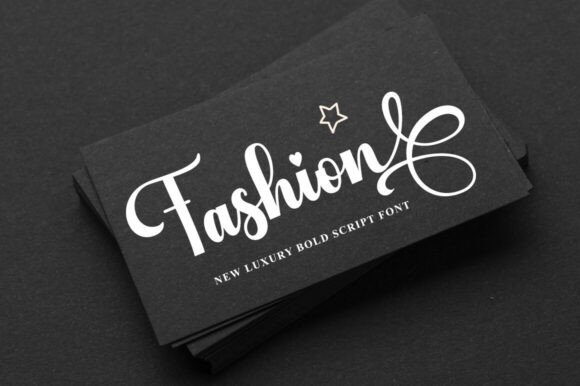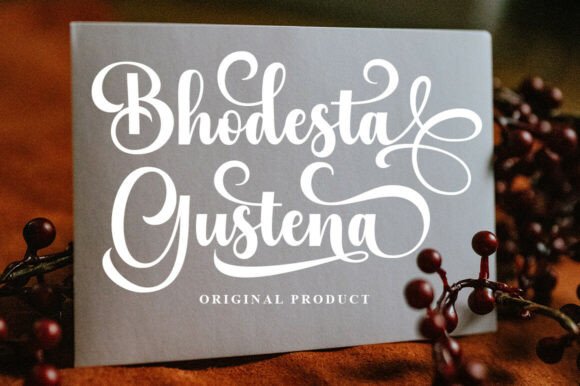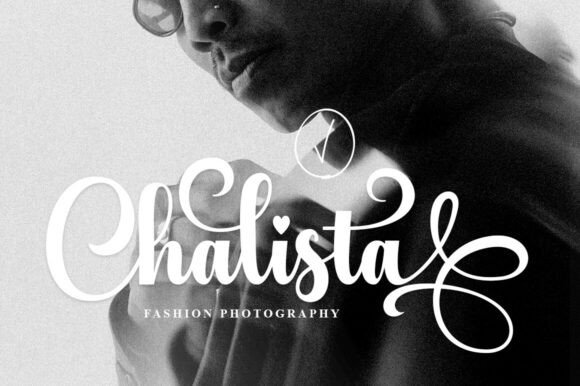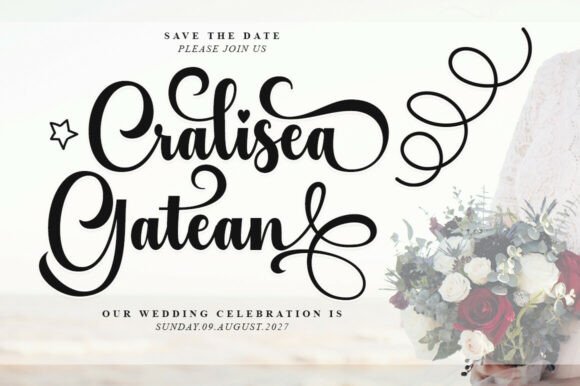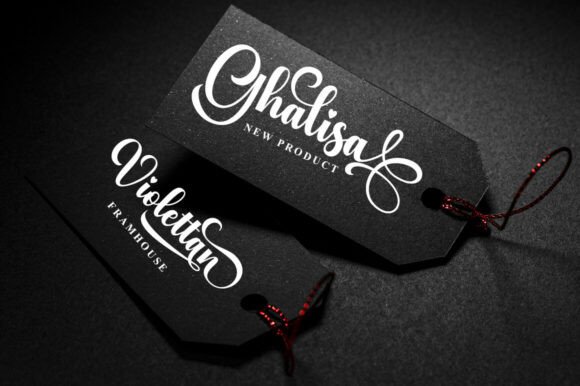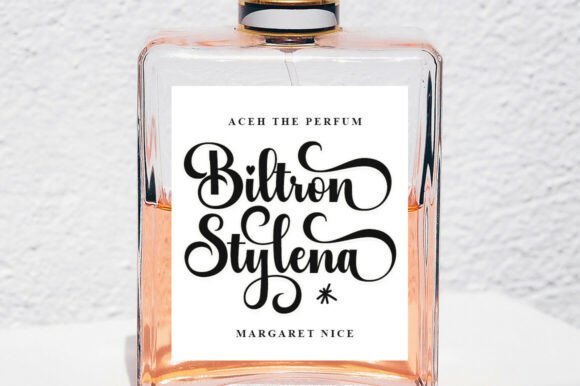
The Perfect Touch of Elegance: Unlocking the Power of Chalista Yustina Font
Have you ever stared at a blank canvas, waiting for that spark of creativity to ignite? It’s a moment we’ve all experienced, and it’s where the magic happens. For designers, this moment can be a make-or-break scenario, where a single font choice can elevate or detract from the entire project. And that’s exactly where Chalista Yustina Font comes in – a game-changer that adds a touch of softness and elegance to any design.
Chalista Yustina Font is a versatile and refined font that lends itself to a wide range of design applications, from branding and titles to wedding designs, invitations, and signs. Its delicate strokes and feminine touch make it an invaluable asset for designers seeking to add a touch of sophistication to their work.
Chalista Yustina Font Key Features
- Font Family: Chalista Yustina
- Character Count: 1500+ glyphs, including Latin, Cyrillic, and Greek alphabets
- Unique Characteristics: Chalista Yustina is a modern, elegant script font with a flowing, handwritten feel, ideal for creative and artistic projects, such as invitations, logos, and packaging designs.
Chalista Yustina Font Review
Overall, I’m quite impressed with the Chalista Yustina Font, but as with any font, there are pros and cons.
- Unique style: The Chalista Yustina Font has a distinctive look that sets it apart from more common fonts. It’s perfect for those who want to add some personality to their designs.
- Legibility: Despite its unique style, the font is still easy to read, making it suitable for body text and headings.
- Font pairing possibilities: The Chalista Yustina Font can be paired with a wide range of other fonts to create visually appealing combinations.
- Limited language support: The font may not support all languages, which could be a limitation for designers who need to work with multilingual content.
- Not ideal for small text sizes: While the font is legible, it may become difficult to read when used at small text sizes.
- No bold or italic variations: Some designers may find it lacking in terms of stylistic variations, which can limit its versatility.
The Chalista Yustina Font is a solid choice for designers who want to add a unique touch to their designs. While it has some limitations, its unique style and legibility make it a great option for the right projects.
Chalista Yustina Font: A Practical Application Guide
The Chalista Yustina Font is a versatile and elegant script font that can be used in various design applications. To use it, follow these steps:
2. Use the font for headings, titles, or body text to add a touch of elegance to your design.
2. Use the font for text overlays, labels, or other design elements to add a touch of sophistication.
2. Use the font for headings, titles, or body text to add a touch of elegance to your presentation or document.
To get the most out of the Chalista Yustina Font, use it sparingly and in combination with other fonts to avoid overwhelming the design.
Experiment with different font sizes, colors, and styles to create a unique and visually appealing design.
The Chalista Yustina Font is ideal for:
Wedding and event design
Stationery and greeting cards
Alternatives to Chalista Yustina Font for Designers
Lato Font is a sans-serif font designed by Łukasz Dziedzic in 2010. It is a modern and clean font suitable for body text, headings, and titles. Lato Font is a great alternative to Chalista Yustina Font for designers who want a more neutral and versatile font.
Comparison: While Chalista Yustina Font has a more elegant and sophisticated feel, Lato Font is more straightforward and easier to read, making it a better choice for body text.
Open Sans Font is a sans-serif font designed by Steve Matteson in 2010. It is a highly readable and versatile font suitable for various applications, including body text, headings, and titles. Open Sans Font is a great alternative to Chalista Yustina Font for designers who want a clean and modern font.
Comparison: While Chalista Yustina Font has a more unique and distinctive feel, Open Sans Font is more neutral and widely used, making it a better choice for projects that require a consistent and professional look.
Q: Is Chalista Yustina a free font?
Chalista Yustina is a commercial font, which means it requires a license for commercial use. However, a free trial or demo version may be available for personal or non-commercial projects. Be sure to check the font’s licensing terms for more information.
Q: Can I use Chalista Yustina for logo design?